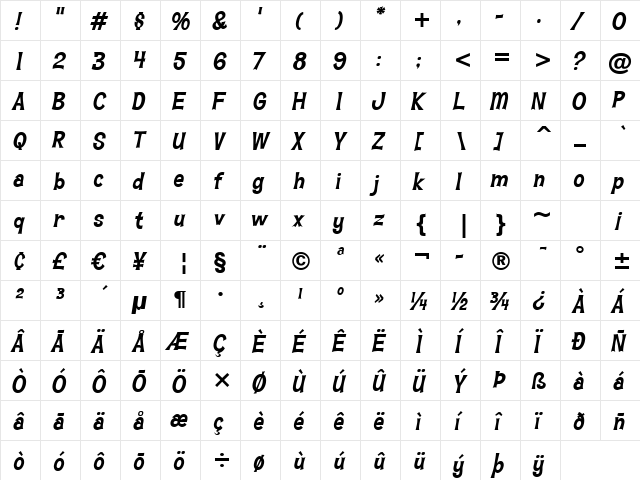
Hawaiian Aloha BTN BoldOblique Font Preview
Design Context for Hawaiian Aloha BTN Typeface
Hawaiian Aloha BTN takes a measured approach to typography — its balanced proportions and neutral character make it a reliable workhorse for both digital and print work. The slanted form adds forward momentum and visual energy. The heavy weight commands attention and anchors typographic hierarchies.
Pro Tip: Try Hawaiian Aloha BTN for annotation and caption copy alongside an upright companion — the contrast in angle creates a dynamic but ordered typographic system.